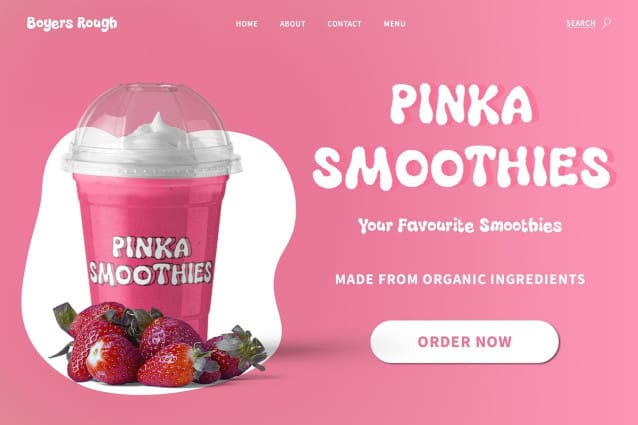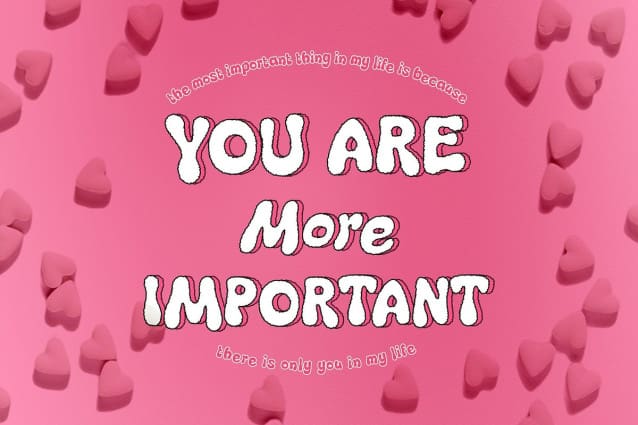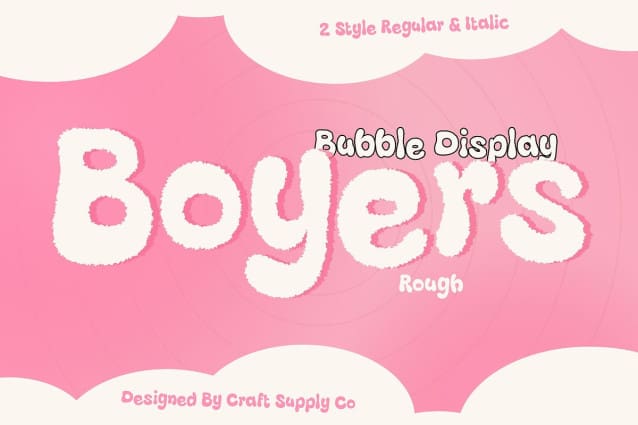
Boyers Rough Font
Boyers Rough Font: A Vintage-Inspired Bubble Font. Bubble Charm with a Vintage Twist Boyers Rough captures the playful essence of bubble letters, drawing inspiration from whimsical balloons. Its rough texture adds a nostalgic vintage touch to the overall display design.
Retro-Inspired Design Embracing retro aesthetics, This font infuses classic bubble shapes with a distressed, roughened effect. This combination evokes a sense of nostalgia while maintaining a contemporary appeal.
Ideal for Display Projects Tailored for display use, This font excels in various projects, from posters to packaging. Its bubbly form and vintage roughness make it a standout choice for eye-catching headlines and branding.
Versatile Vintage Vibes Beyond its bubbly appearance, This font offers versatility in conveying vintage vibes across different design contexts. Whether used in digital or print media, it adds a charming retro flair to any project.
Nostalgic Bubble Typography This font emerges as a nostalgic yet versatile option in bubble typography. With its vintage-inspired design and roughened texture, it brings a playful retro charm to display projects, inviting audiences to reminisce and engage with your content. Step into the world of Boyers Rough and infuse your designs with whimsical vintage vibes.